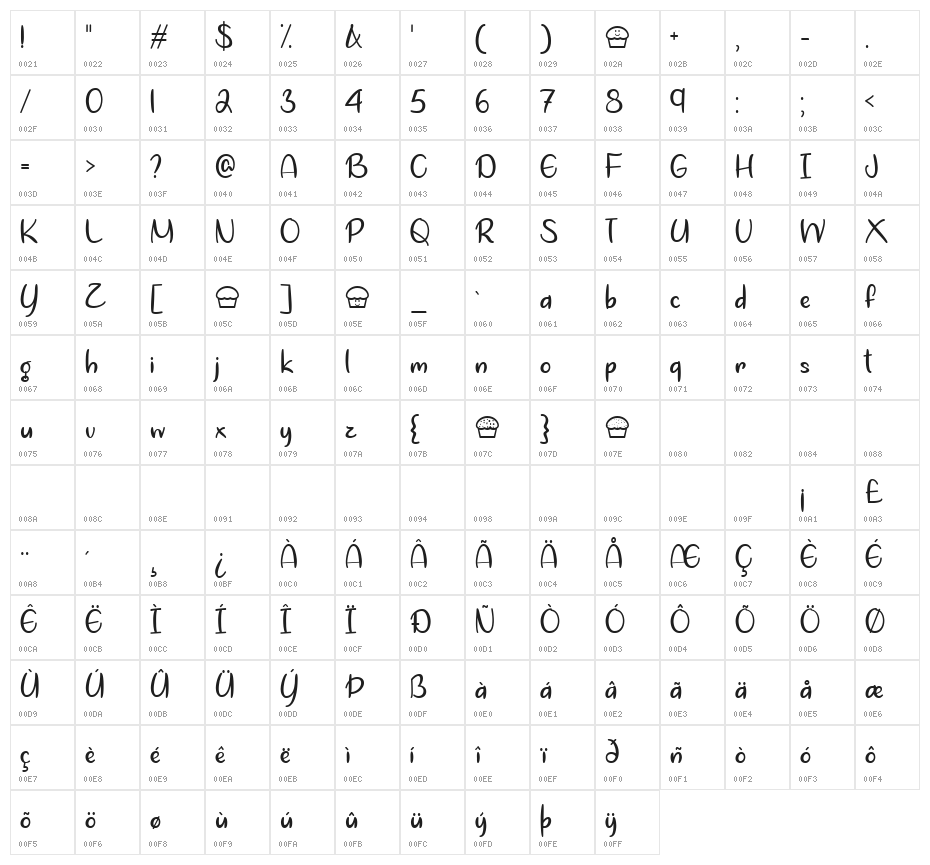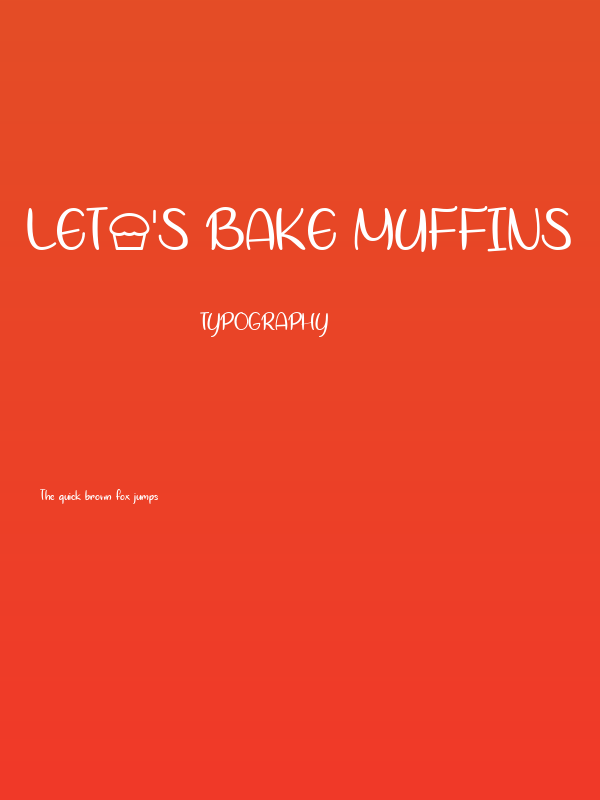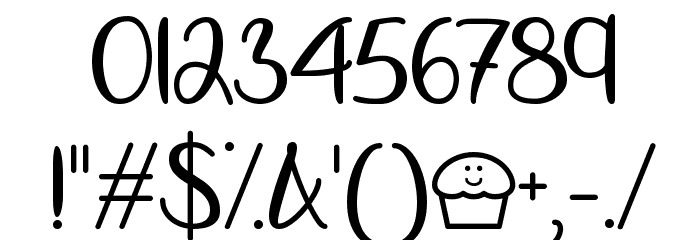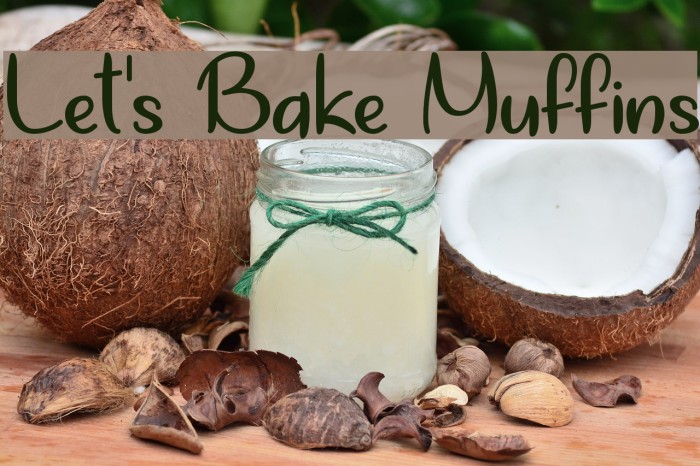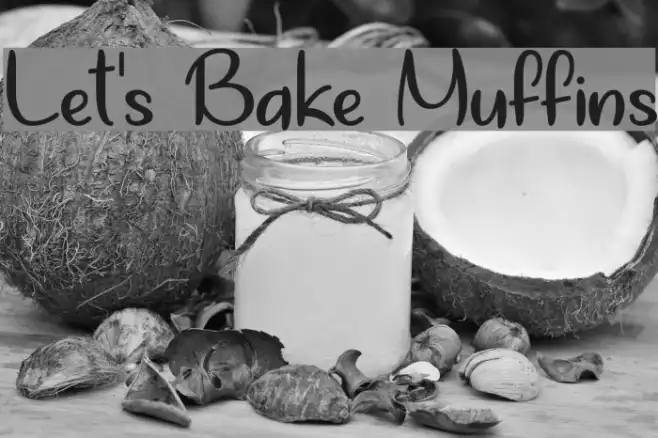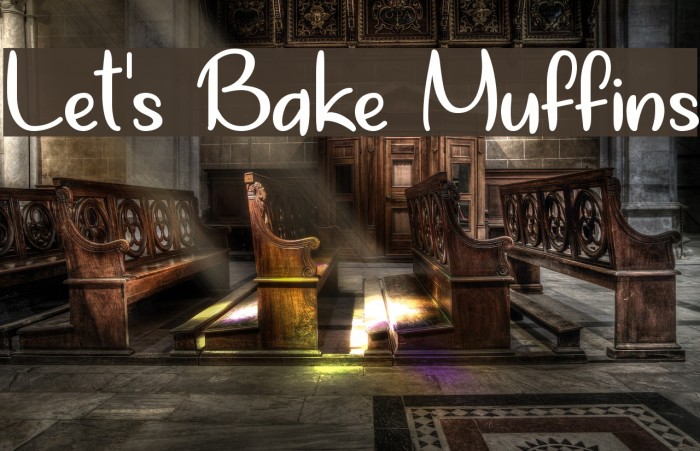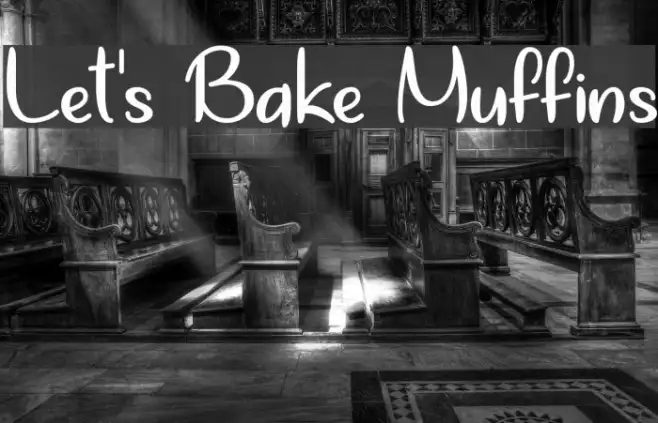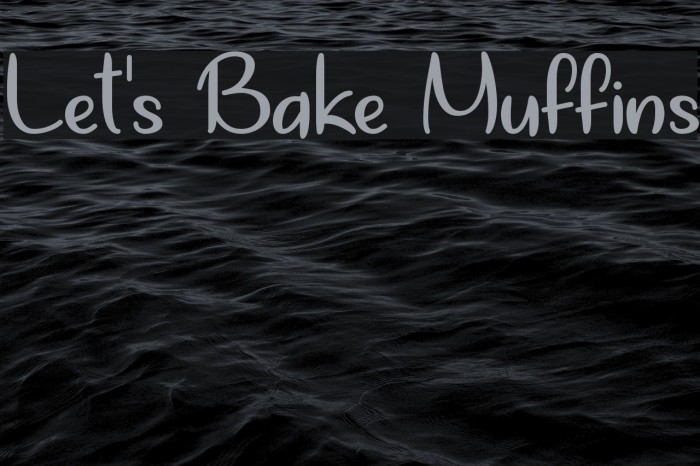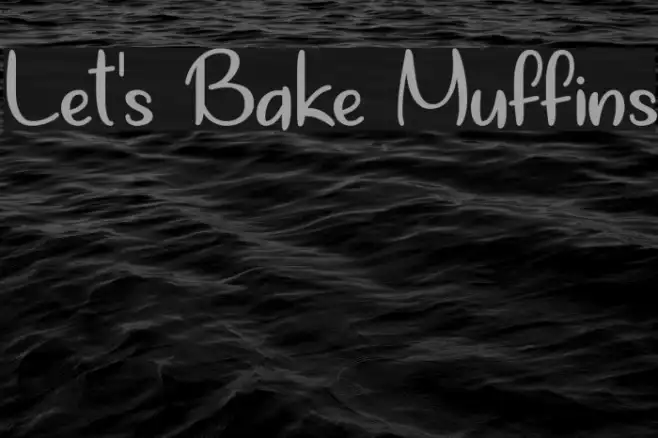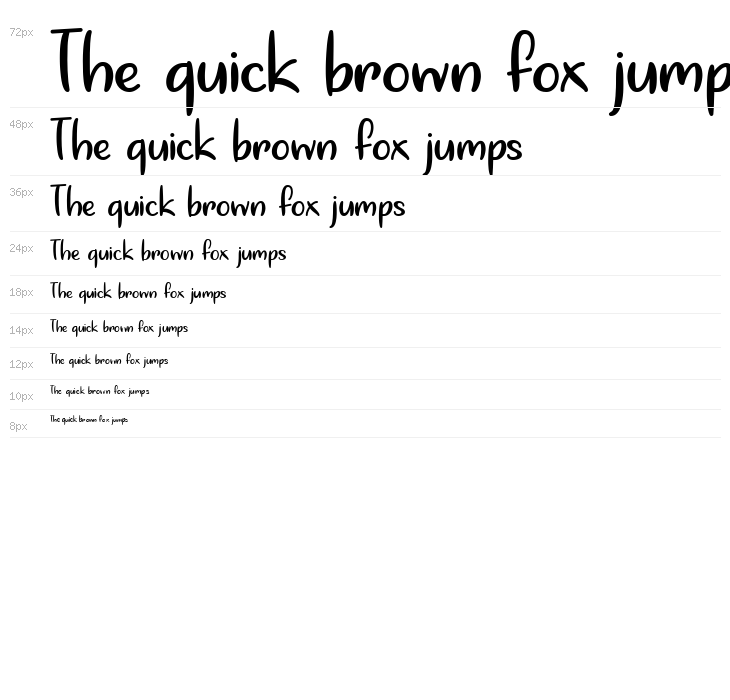
Let's Bake Muffins Font
Let's Bake Muffins Description
This playful and whimsical font features a handwritten style with a smooth, flowing appearance. The characters are rounded and slightly irregular, giving them a friendly and approachable feel. The uppercase letters are bold and prominent, while the lowercase letters maintain a consistent style with slight variations in height and width. Numbers are clear and easy to read, matching the overall playful theme. Special characters are creatively designed, adding to the font's charm. This font is perfect for projects that require a personal touch or a fun, informal vibe.
| Proposed Projects | Ideal for children's books, greeting cards, playful branding, and DIY projects. |